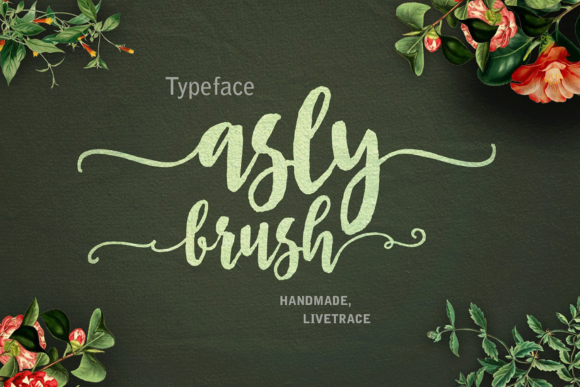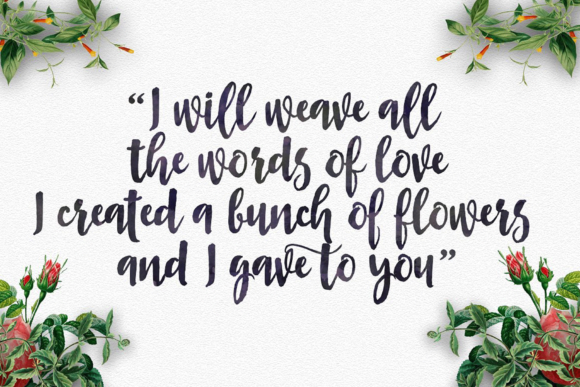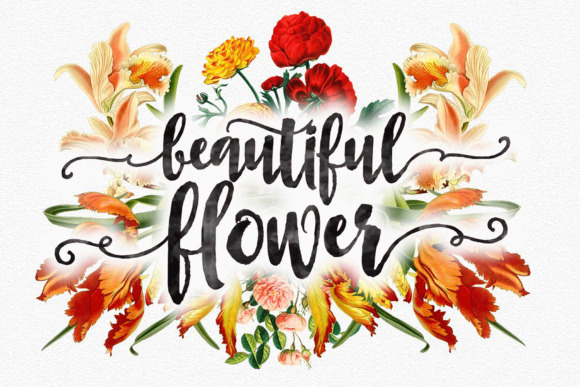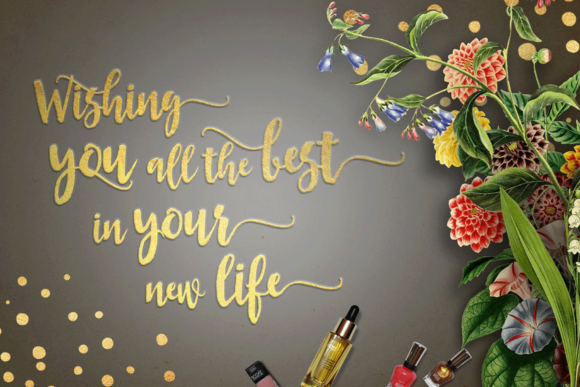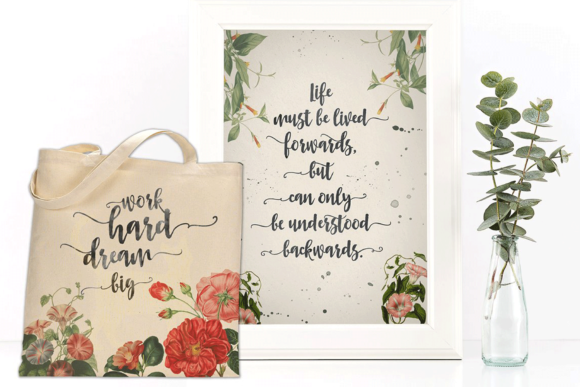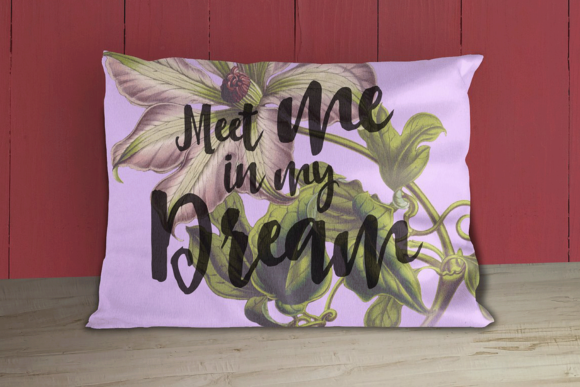
Asly Brush Font
About Asly Brush Font
Asly Brush is a cute and casual handwritten font with an incredibly friendly feel. It features gorgeous swashes and ligatures that make this script incredibly versatile. Whether you’re looking for fonts for Instagram or calligraphy scripts for DIY projects, Asly Brush will turn any creative idea into a true piece of art!